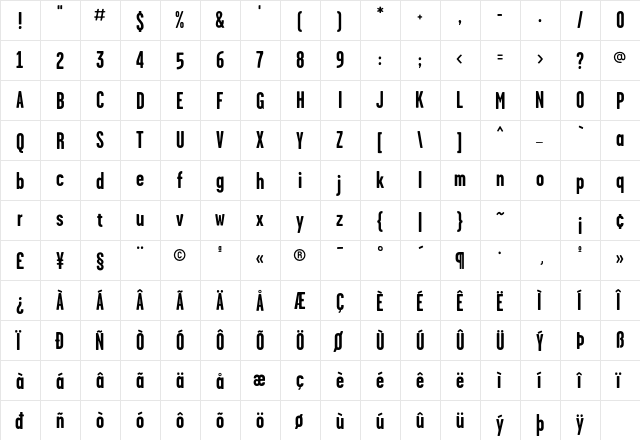
Garage Gothic FB Bold
Design Context for Garage Gothic FB Typeface
Garage Gothic FB takes a clean, functional approach — its unadorned letterforms prioritise legibility and work reliably across screen and print environments. Its bold stroke weight gives it real presence on the page.
Well-suited to navigation labels, product packaging, and anywhere legibility at scale is essential.
Font Pairing: Use Garage Gothic FB for headlines alongside a lighter-weight sans or serif for body copy to establish clear visual hierarchy.
Pro Tip: Use Garage Gothic FB for UI labels, navigation, and short-form body copy where clean legibility is the priority.